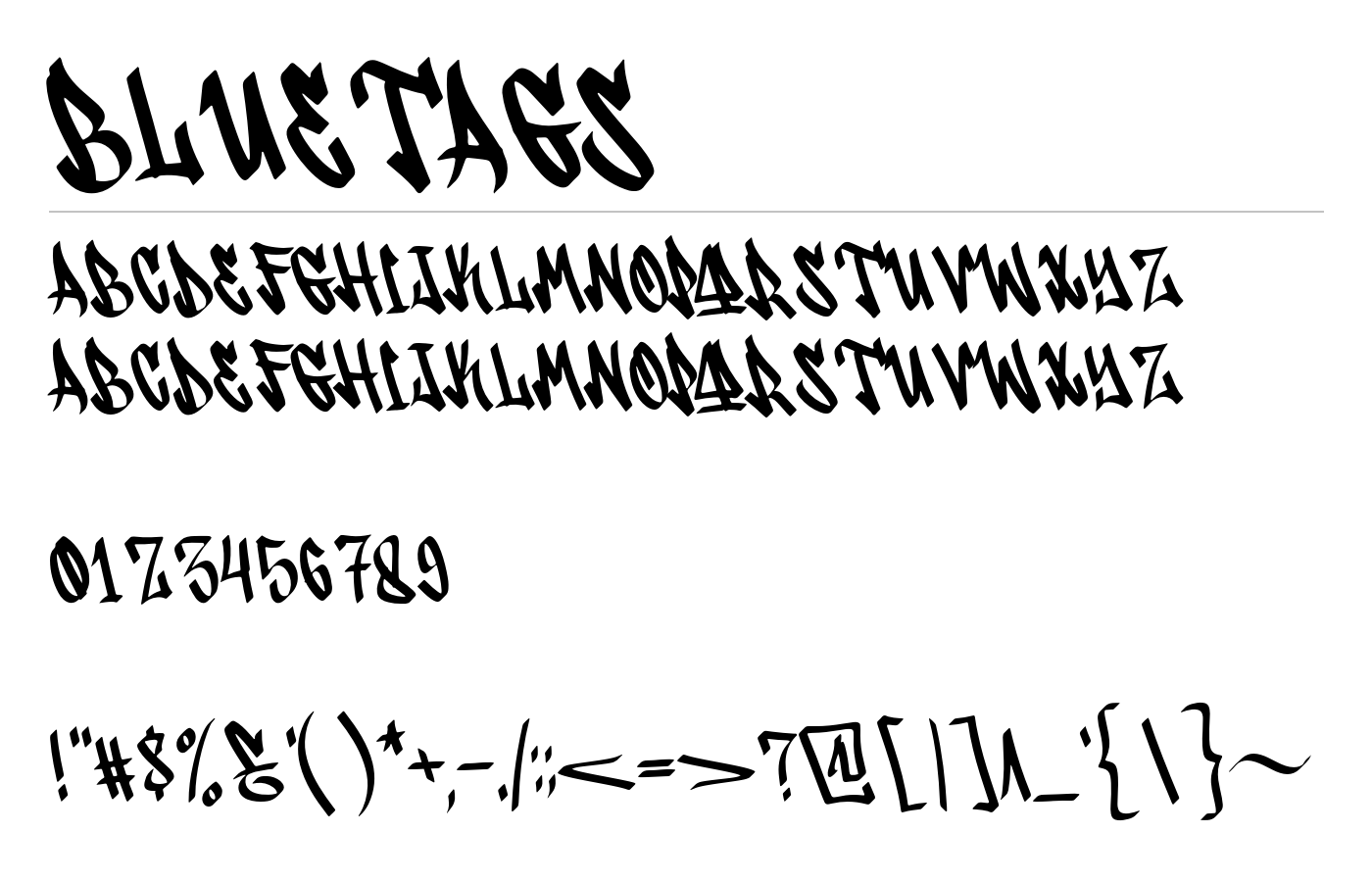
Bluetags is a bold, stylized sans serif font with sharp, angular strokes that evoke a graffiti-inspired, edgy vibe. Its lively and slightly irregular letterforms give it a playful yet rebellious personality, making it ideal for urban, streetwear, or alternative branding and dynamic display headlines where impact and attitude are key. This font shines best in creative projects seeking a modern, artistic flair with a strong visual presence.
Bluetags Font
About Bluetags Font
| Font family | Bluetags Font |
| Designer | Anggi Hermawan |